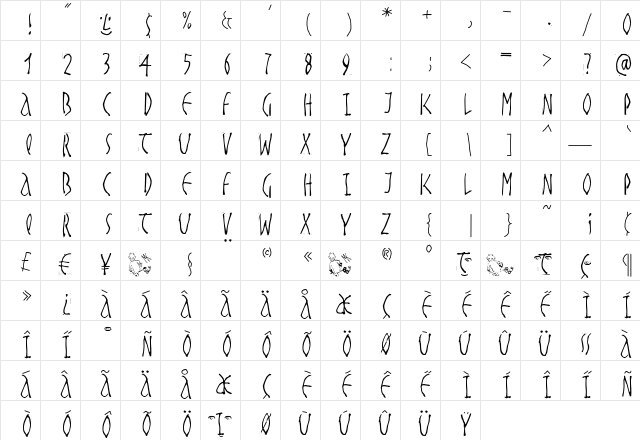
HandwrittenSlim Regular
Design Context for HandwrittenSlim Typeface
HandwrittenSlim flows with the natural rhythm of handwritten lettering, making it ideal for designs that call for warmth and personal expression.
Font Pairing: Combine HandwrittenSlim with a simple geometric sans for maximum contrast — the tension between flowing curves and clean structure is a classic typographic pairing.
Pro Tip: Pair HandwrittenSlim with a clean sans-serif for supporting text. The contrast between fluid script and geometric structure creates an elegant typographic hierarchy.